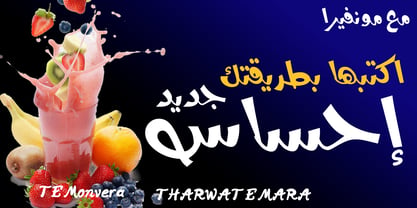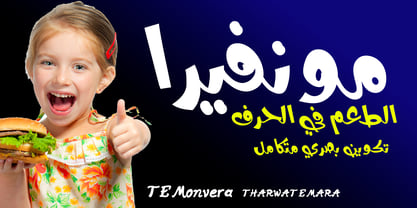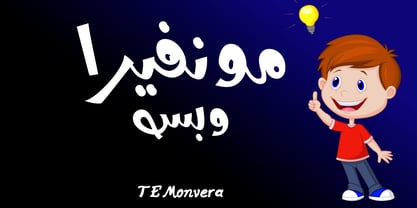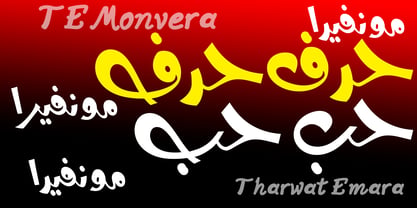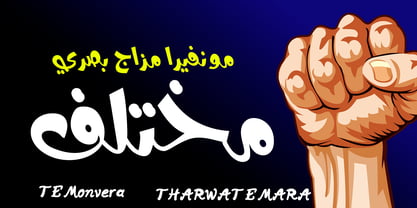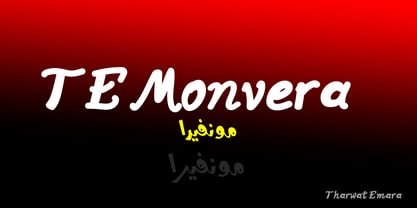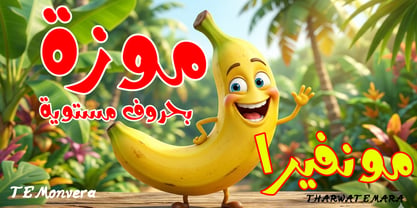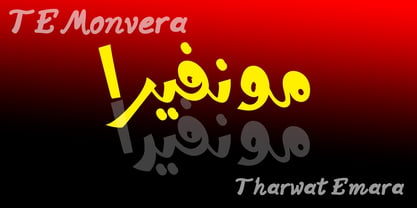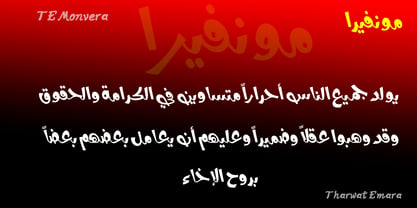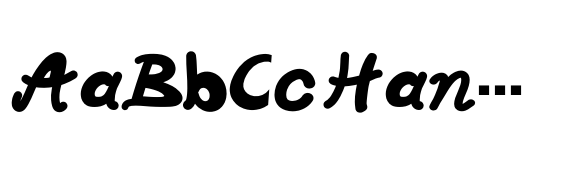
TE Monvera
by Tharwat Emara
The TE Monvera Font Family was designed by Tharwat Mohamed Emara and published by Tharwat Emara. TE Monvera contains 1 styles. More about this family
Monvera is a modern multilingual display typeface that seamlessly integrates Arabic and Latin scripts, creating a unified and contemporary visual identity. This typeface empowers designers with a strong and distinctive typographic voice, perfect for modern branding and creative projects. Monvera artfully combines the expressive nature of Arabic letterforms with the clean, geometric structure of Latin typography, resulting in a balanced and versatile type system ideal for bilingual and international design work. Crafted with meticulous attention to visual harmony, Monvera excels in applications such as headlines, logos, posters, packaging, and visual identity systems. It guarantees consistency and readability across both scripts while maintaining a bold modern character. Ideal For: - Branding & Visual Identity - Logos & Headlines - Posters & Advertising - Packaging Design - Social Media Graphics - Bilingual Design Projects - Modern Creative Typography Monvera transcends being just a typeface; it embodies a contemporary visual system that merges elegance, clarity, and modern expression within a multilingual typographic framework.
Tharwat Emara is an esteemed Egyptian calligrapher, renowned for his exceptional work in the field of Arabic calligraphy. He is recognized for his unique style and his ability to seamlessly blend tradition with innovation, resulting in a body of work that is both timeless and contemporary.Born in Egypt, Tharwat Emara developed a passion for calligraphy at a young age. He honed his skills through years of dedicated practice and study, eventually becoming one of the most prominent calligraphers in the country. His work has been exhibited around the world, and his fonts have been used in a variety of media, including books, advertisements, and logos.What sets Tharwat Emara apart from other calligraphers is his ability to create fonts that are both beautiful and functional. He understands that calligraphy is not just an art form, but a means of communication, and his fonts reflect this understanding. They are clear, legible, and easy to read, while also retaining the aesthetic beauty that is so important to the art of calligraphy.Tharwat Emara's fonts are also notable for their versatility. He has created fonts that are suitable for a wide range of applications, from elegant wedding invitations to bold, modern advertising campaigns. Whether you're looking for a font that is classic and timeless or something that is cutting-edge and contemporary, Tharwat Emara has a font that will suit your needs. One of the things that makes Tharwat Emara's fonts so special is the attention to detail that he puts into every design. He understands that each letter is a work of art in itself, and he approaches each design with the same level of care and precision that he would if he were creating a standalone piece of calligraphy. This attention to detail ensures that each font is not only beautiful, but also functional and easy to use. In addition to his work as a calligrapher, Tharwat Emara is also an accomplished teacher. He has taught calligraphy to students around the world, and his workshops are highly sought-after by both beginners and experienced calligraphers. His approach to teaching is based on his belief that calligraphy is a discipline that requires patience, dedication, and a willingness to learn from both success and failure. He encourages his students to explore their creativity and to find their own unique style, while also providing them with the technical skills they need to create beautiful calligraphy.If you're looking for a calligrapher who combines tradition with innovation, who creates fonts that are both beautiful and functional, and who approaches his work with the utmost care and precision, then Tharwat Emara is the perfect choice. His fonts are among the most distinctive and recognizable in the world of Arabic calligraphy, and they are sure to add a touch of elegance and sophistication to any project.